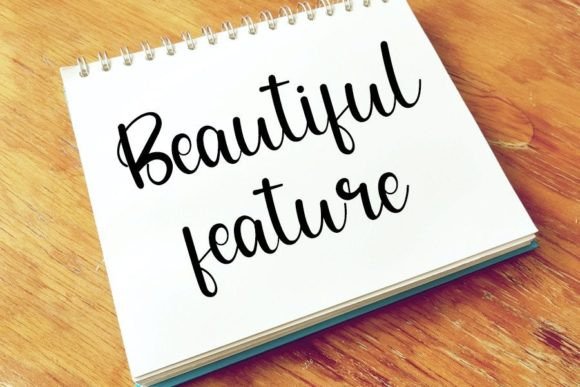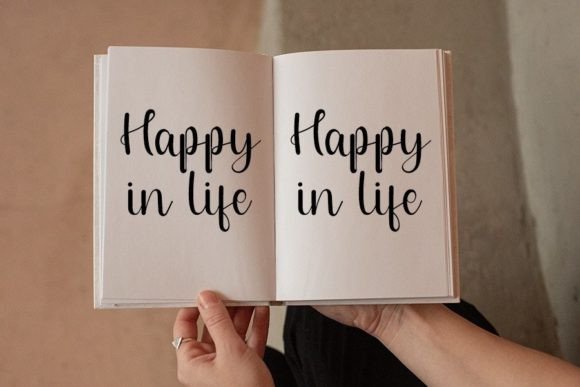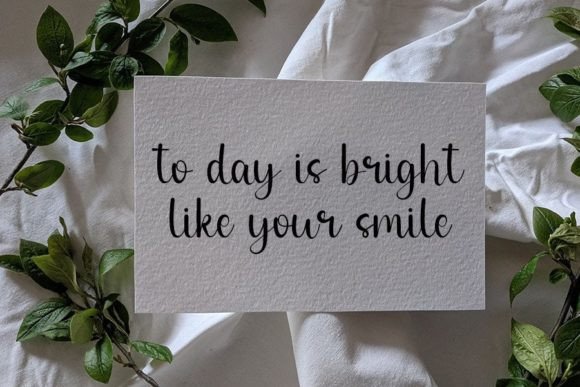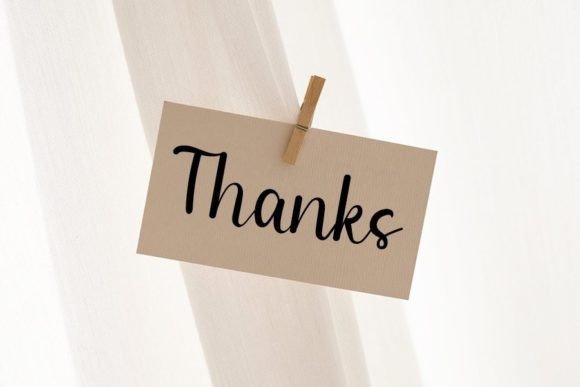
Introduction to Reason Font
Imagine you’re brainstorming ideas for a new project, and suddenly, a spark of creativity strikes. You envision a beautiful, handwritten design that captures the essence of your message. For designers, this moment is a treasure trove of possibilities. It’s the perfect time to explore the world of high-quality fonts that can elevate your creative project to the next level.
One such font that stands out from the crowd is the Reason Font. This elegant and beautiful handwritten font is a design resource that will make your projects shine. With its distinct and timeless style, the Reason Font is perfect for designers who want to add a touch of sophistication to their work.
Key Features of Reason Font
- Features a transparent background for seamless integration into various designs
- Includes a range of glyphs and characters for diverse creative needs
- Includes support for various languages, making it a versatile design resource
Honest Review: Reason Font
I recently had the chance to work with the Reason Font, and I’m excited to share my thoughts on this high-quality design resource. The first thing that caught my attention was its sleek, modern design that’s perfect for creative projects. ✨
Here are some of the key features that I found particularly useful:
- Clean and minimalist aesthetic
Reason Font
The Reason Font is suitable for various design projects, including:
- Blog posts
Alternatives to Reason Font
Great Vibes is a high-quality, cursive font ideal for creative projects that require a touch of elegance. It’s a free download, making it a valuable design resource for designers on a budget. The font features a transparent background, allowing it to blend seamlessly with any design. When to use: wedding invitations, greeting cards, or any project that requires a romantic feel. Compared to Reason Font: Great Vibes has a more elegant and refined feel, making it suitable for projects that require sophistication.
Ostrich Sans is a modern sans-serif font perfect for designers looking for a clean and minimalist design resource. It’s available for free download and features a transparent background, making it easy to incorporate into any design. When to use: business cards, brochures, or any project that requires a professional look. Compared to Reason Font: Ostrich Sans has a more modern and sleek feel, making it suitable for projects that require a contemporary look.